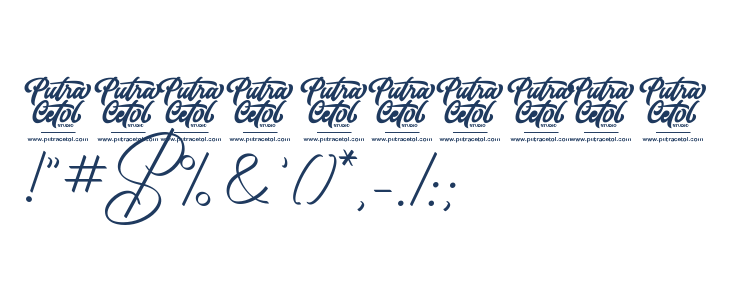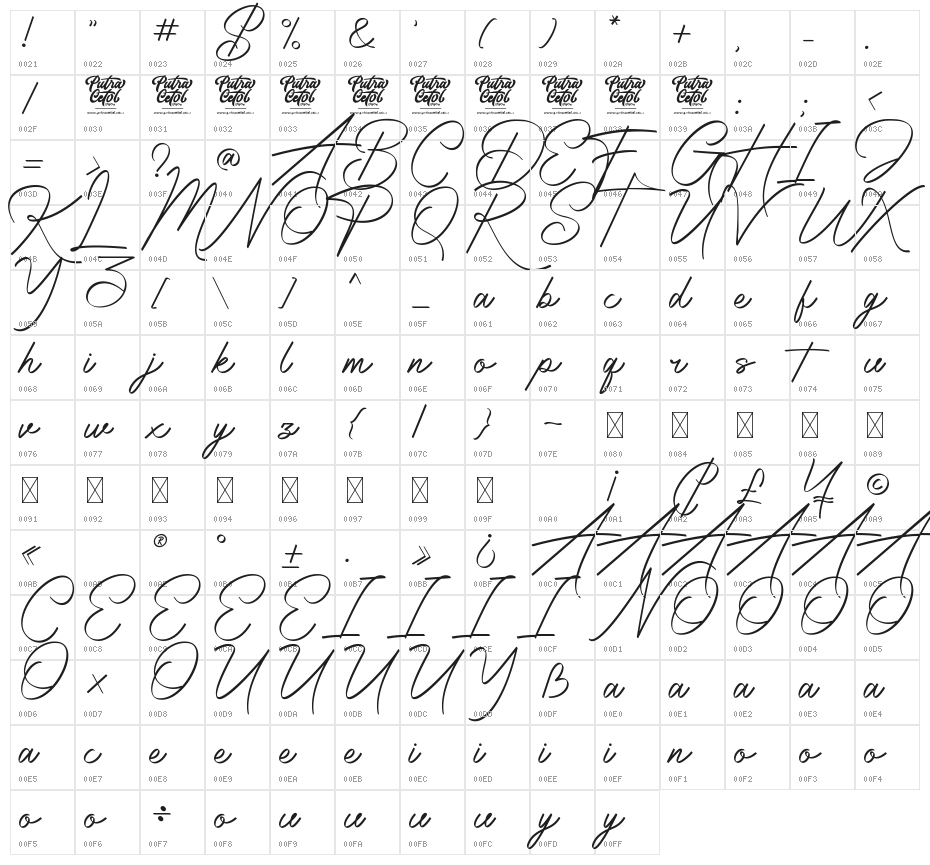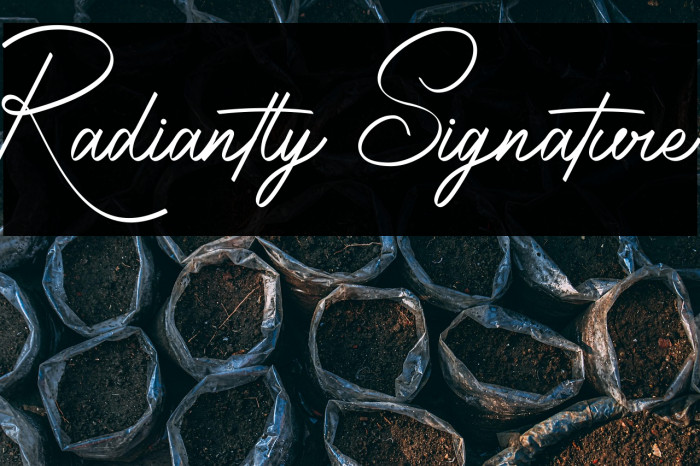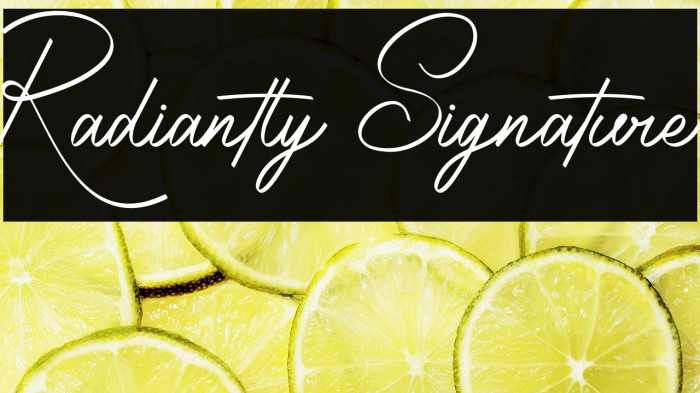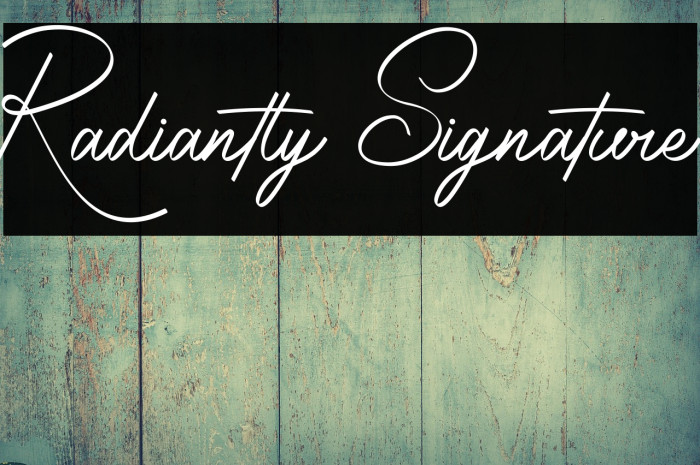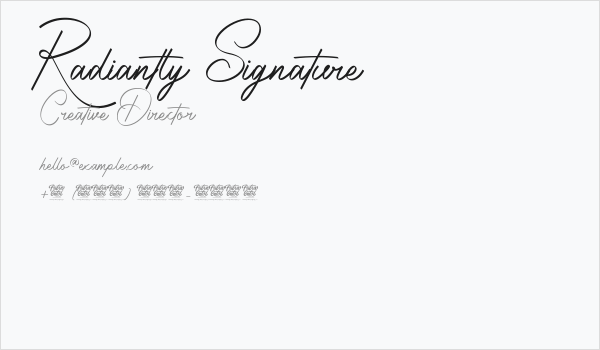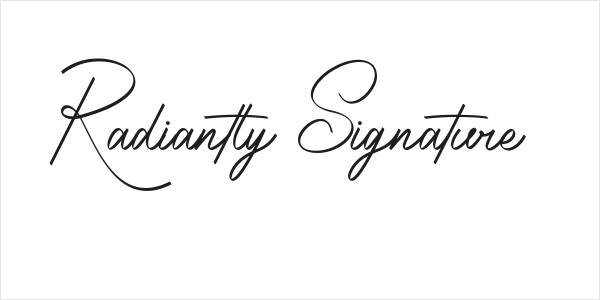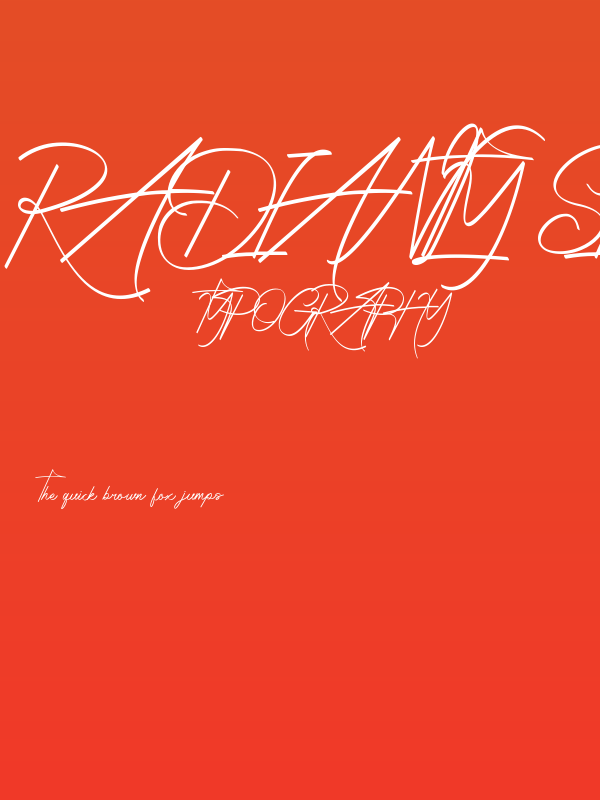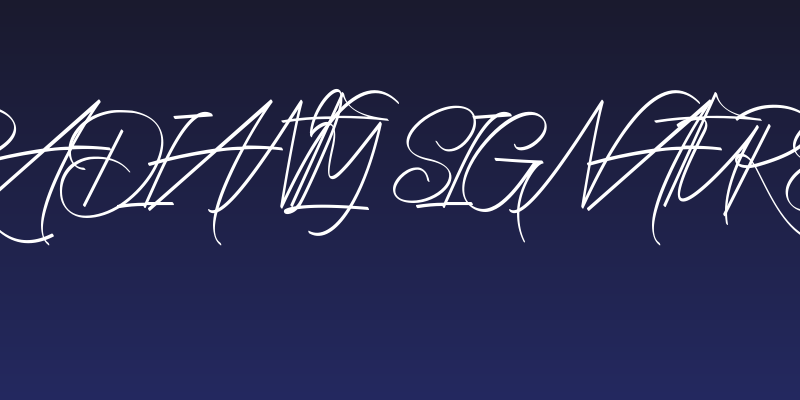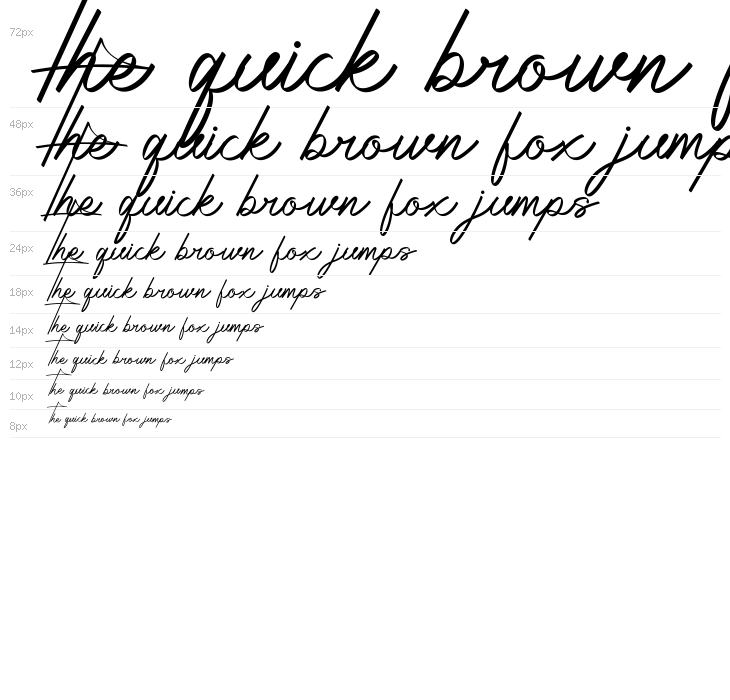
Radiantly Signature Font
Radiantly Signature Description
This font exudes elegance and sophistication with its fluid, cursive script style. The letters are connected in a seamless flow, creating a sense of movement and grace. The uppercase letters are tall and slender, while the lowercase letters maintain a consistent height, adding to the font's refined appearance. The strokes are smooth and continuous, with a slight variation in thickness that adds a touch of dynamism without compromising readability. The special characters are designed with the same attention to detail, ensuring a cohesive look across all elements.